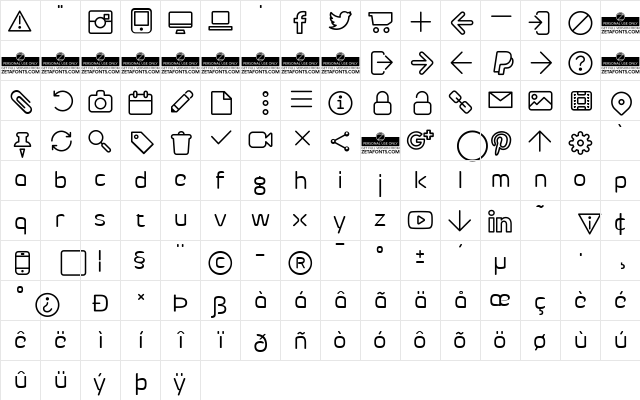
Byom Icons is a composed and adaptable typeface that performs quietly and consistently across a wide range of design contexts.
Pro Tip: Use Byom Icons in both headline and body roles to test its range before committing to a single application.